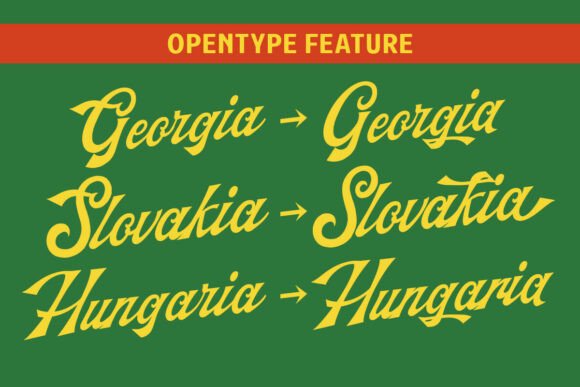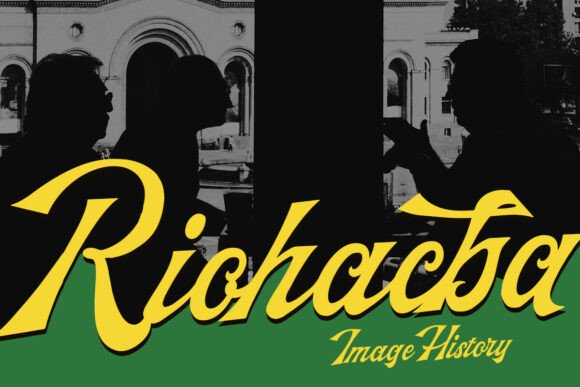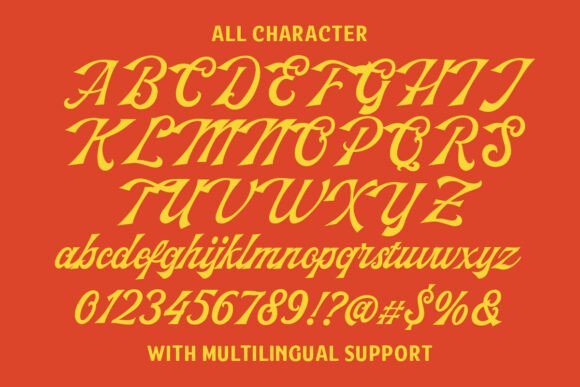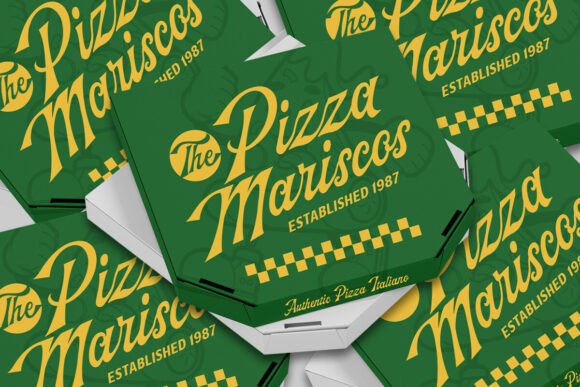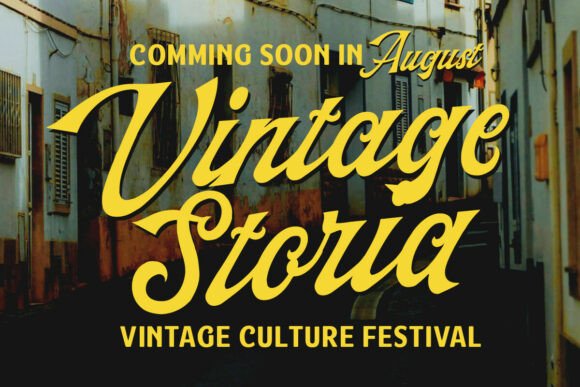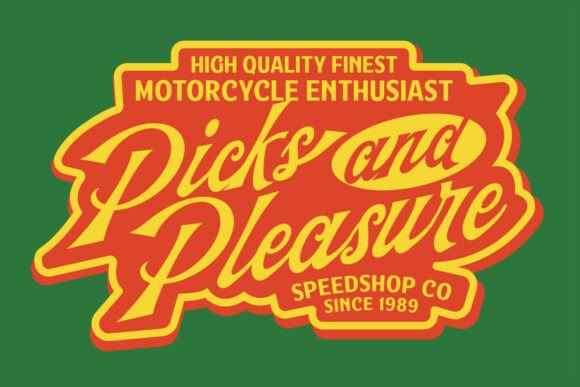
Introduction to Firstone Font
Firstone is a bold retro script rooted in mid-century sign painting and ballpark lettering.
It’s connected strokes sweep with a confident rightward slant, balancing chunky downstrokes with tapered returns for a lively rhythm Capitals open with athletic swashesโnote the long entrance on Fโwhile the t carries a wide cross stroke that glides into the next letter, creating natural underline moments.
Key Features of Firstone Font
Why Choose Firstone Font?